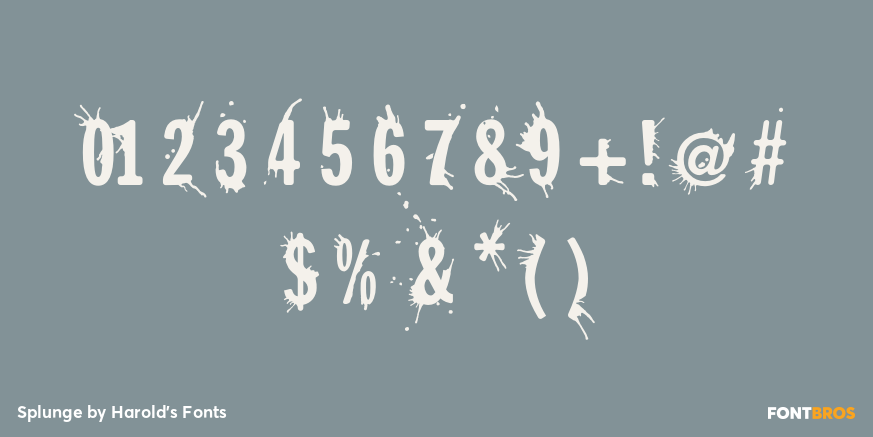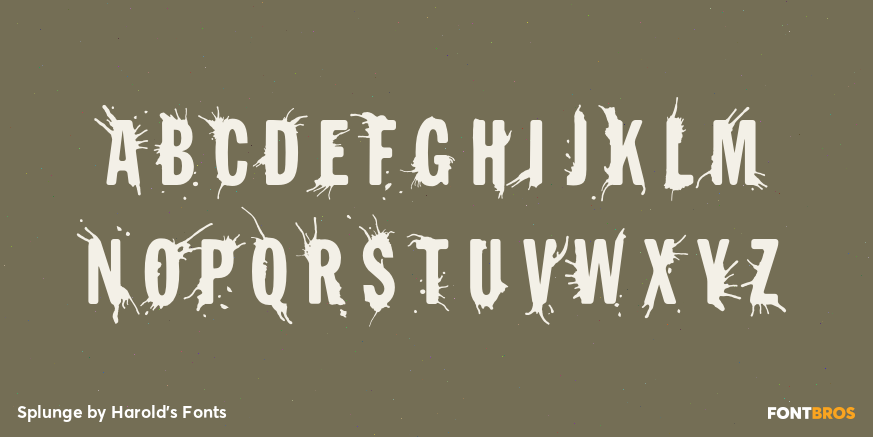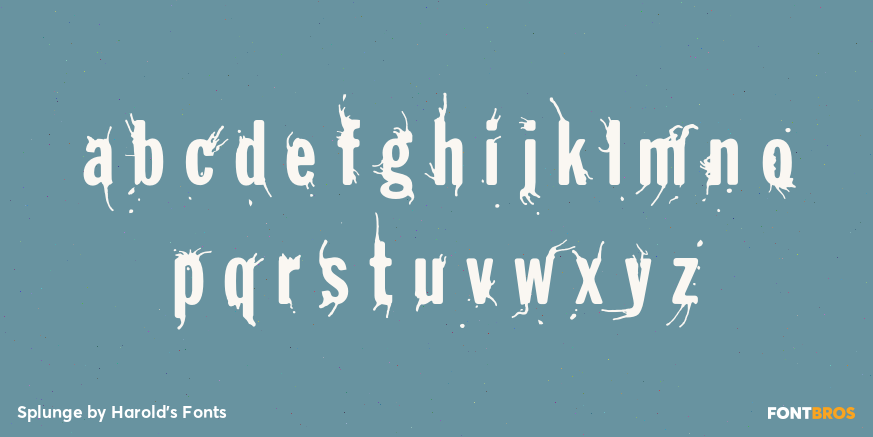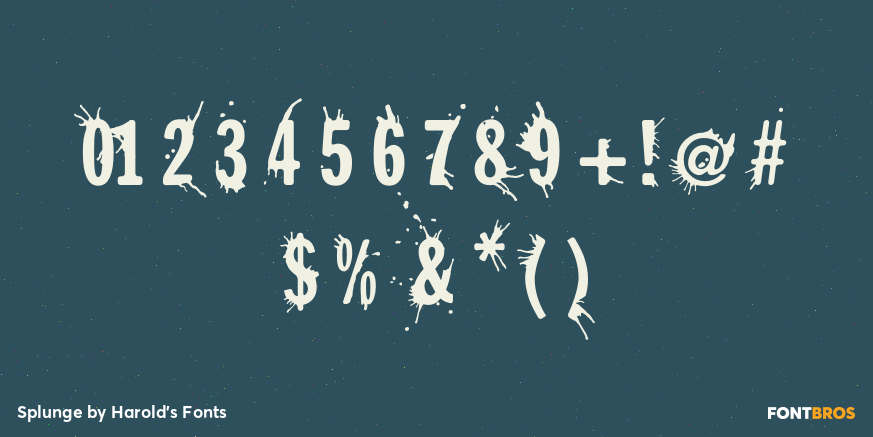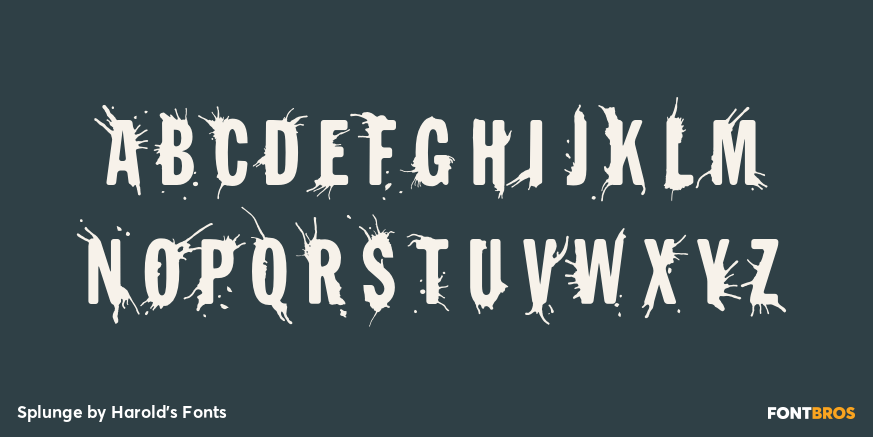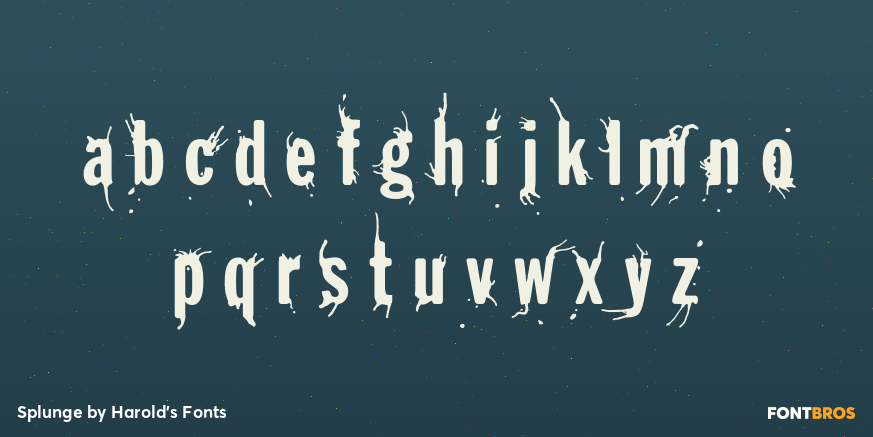
Splunge
Font Family by Harold's Fonts
SPLUNGE is the font to use when you want to make a splash or just suggest one. The basic letterforms were inspired by the classic font Franklin Gothic, but each letter has been redrawn, then rounded, splashed, and splattered. Depending on your choice of color, it could go from playful to rebellious to horrific. The set includes the companion font Splunge Dry without the splatters, as seen in the digits in the example.